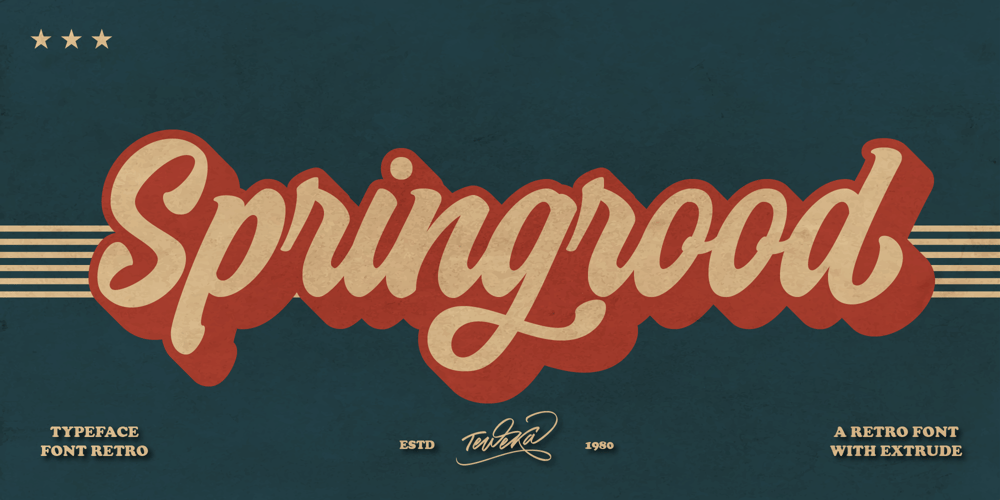
Springrood Font Family was designed by Tuanku Muhammad Iqbal and published by Teweka. Springrood contains 2 styles and family package options. Introducing Springrood Font, This Font is carefully crafted and balanced on script typefaces with a unique Retro style. Also with Extrude Version. You can use them as logos, badges, emblems, packaging, titles, posters, t-shirts, greeting cards, wedding invitations, etc.Alternative characters in this font are divided into several OpenType features such as Stylistic Alternates, Stylistic Sets, and Ligatures. OpenType features can be accessed using OpenType programs such as Adobe Illustrator, Adobe Photoshop, and Adobe InDesign.